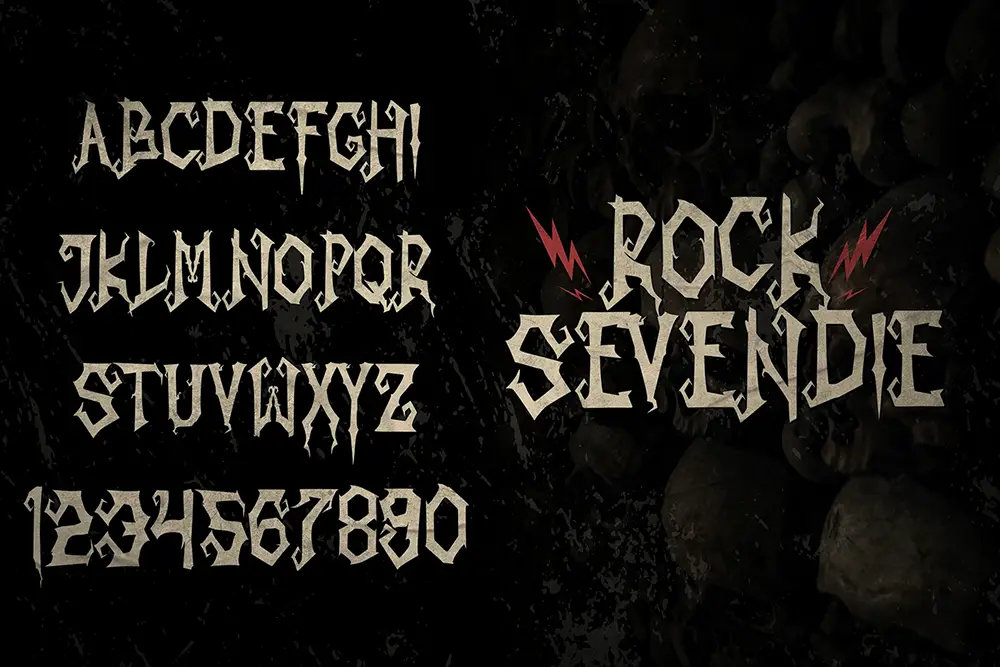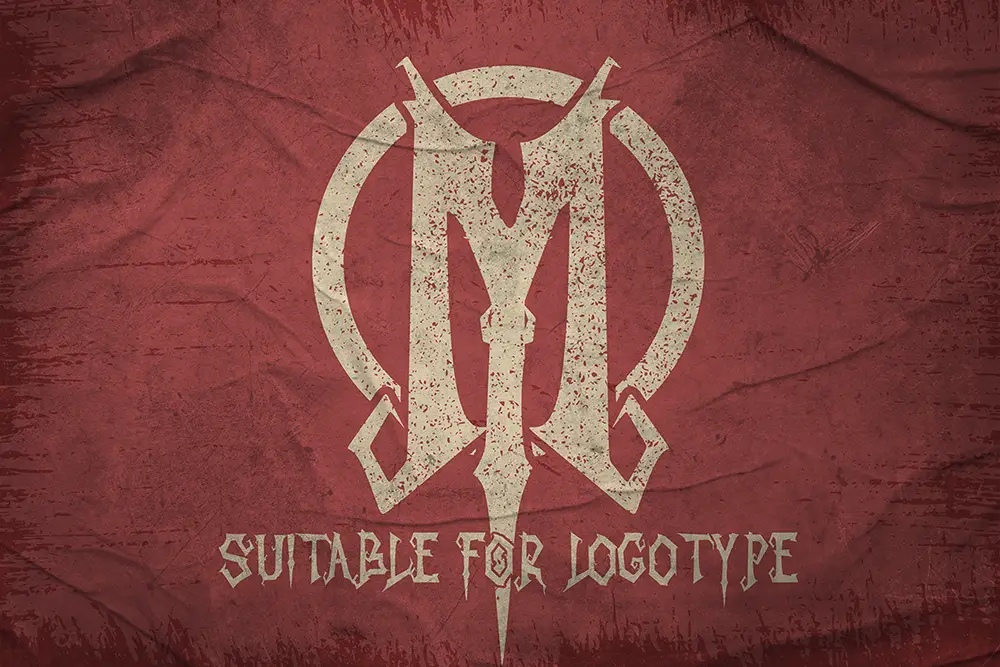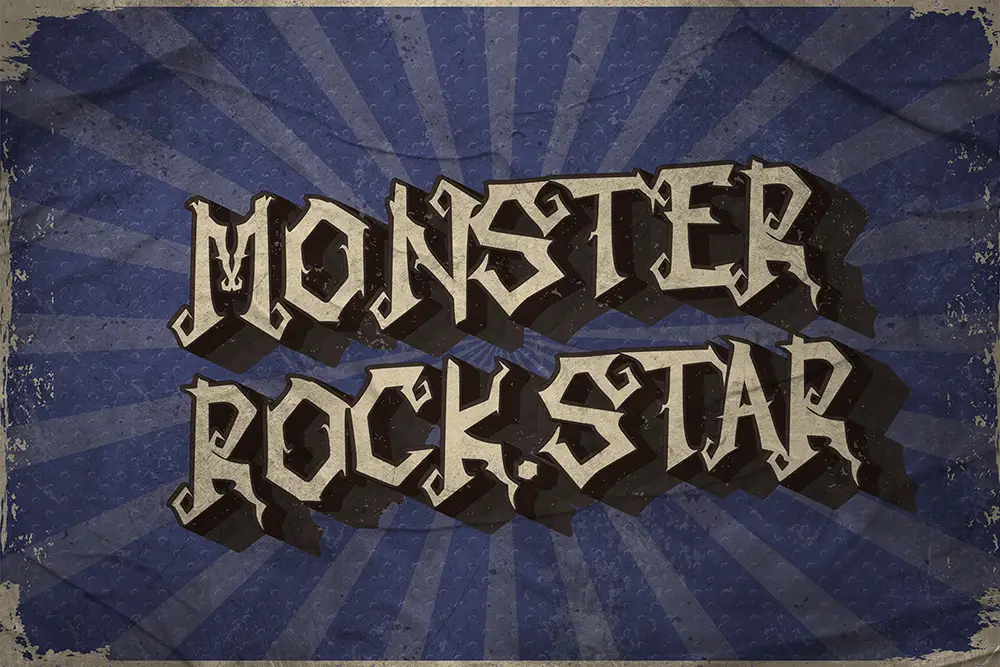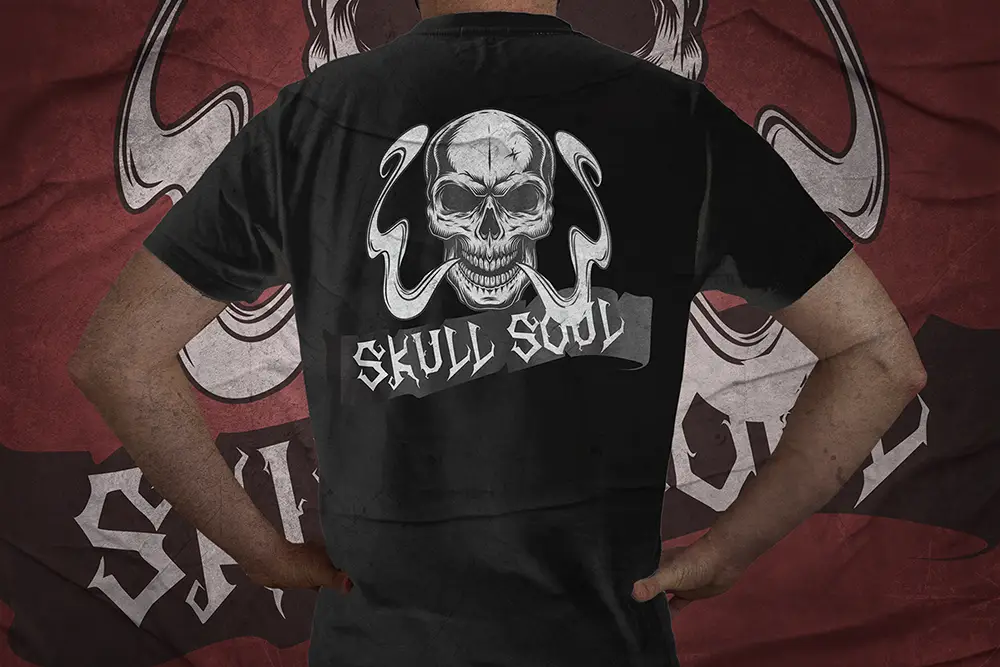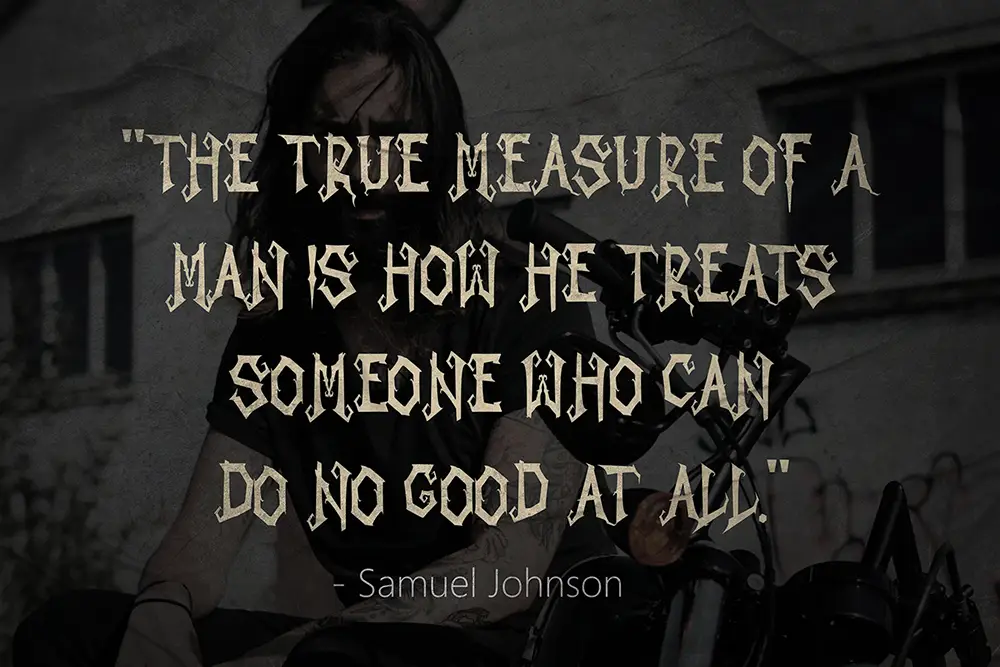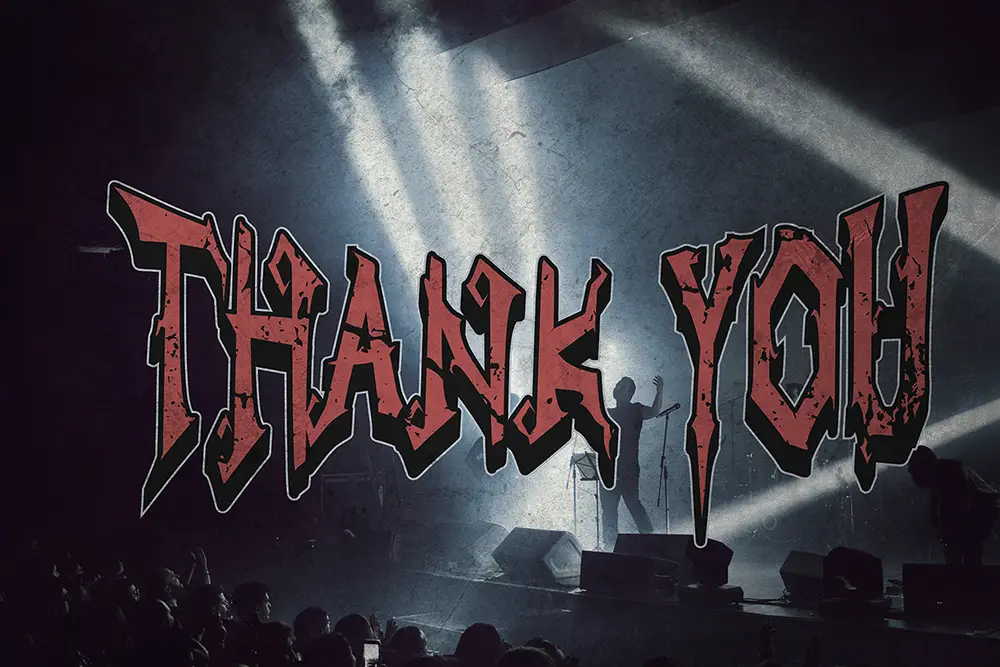
Rock Sevendie – Modern Blackmetal Font for Extreme Design
Typography is not just about letters—it’s about atmosphere, emotion, and impact. That’s why Rock Sevendie – Modern Blackmetal Font was created: to bring raw intensity and sharp aesthetics into your designs. Built with all uppercase characters, this modern blackmetal font is a powerhouse for designers who want to make their work scream with attitude.
From metal band logos to underground event posters, Rock Sevendie is more than a typeface—it’s a statement of rebellion. With OTF, TTF, and WOFF file formats included, plus multilingual support, it’s versatile and ready for global use.
Modern Blackmetal Font with Raw Energy
Rock Sevendie stands tall as a modern blackmetal font that balances tradition and innovation. Inspired by black metal band logotypes, it carries aggressive strokes, jagged edges, and bold forms that command attention. Unlike generic heavy fonts, Rock Sevendie is refined to remain legible while still keeping its extreme edge.
Whether you’re designing an album cover, festival flyer, or digital artwork, this modern blackmetal font injects raw energy and uncompromising style into your work.
Key Features of Rock Sevendie – Modern Blackmetal Font
Professional designers demand more than style—they need reliability. Rock Sevendie comes packed with features that make it easy to integrate into any workflow:
• Uppercase Only (All Caps): Strong capital letter design for maximum impact.
• Multilingual Support: Extended Latin set for global audiences.
• Aggressive Blackmetal Style: Inspired by extreme music culture.
• Sharp and Bold Strokes: Perfect for striking logos and headlines.
• Optimized for Display: Works best in large sizes for posters, covers, and titles.
Why Designers Love Rock Sevendie
Designers across music, entertainment, and underground art love Rock Sevendie because it captures the essence of extreme culture in a professional, usable way. Here’s why this modern blackmetal font is so popular:
• Uncompromising Style: Aggressive and bold, yet clean enough to stay readable.
• Perfect for Niche Markets: Metal bands, gothic projects, and underground brands find it ideal.
• Easy Pairing: Pairs beautifully with elegant serifs like Kastroz Luxury Vintage Serif Font for contrast-driven designs.
Rock Sevendie for Logos and Branding
Logos represent identity, and in the world of metal music and alternative branding, boldness is everything. Rock Sevendie’s modern blackmetal font design is built for unforgettable logos. Its sharp uppercase structure makes it perfect for band names, club branding, extreme sports, and edgy product labels.
Use Rock Sevendie as your logo’s centerpiece, or pair it with a serif like Kastroz to balance chaos with elegance. The result is branding that’s both rebellious and refined.
Rock Sevendie for Posters and Album Covers
No genre uses typography as powerfully as heavy music, and posters are its battlefield. Rock Sevendie thrives here. As a modern blackmetal font, it brings menace, energy, and power to event flyers, album artwork, and merchandise.
When displayed in large format, its jagged strokes amplify the mood of intensity. Whether you’re promoting a metal festival or designing a horror-themed poster, Rock Sevendie ensures your design screams louder than the rest.
Rock Sevendie in Digital Media
In today’s world, underground culture thrives online. Rock Sevendie’s modern blackmetal font style is ideal for digital branding, social media headers, and streaming platform graphics.
Its uppercase power ensures maximum visibility even on small screens. Designers who work on YouTube thumbnails, Twitch branding, or alternative lifestyle blogs love Rock Sevendie for its bold impact.
• Character Set: Uppercase (All Caps), Numbers, Punctuation
• Category: Modern Blackmetal Font / Display
• Best Uses: Logos, Posters, Album Covers, Branding, Digital Media, Merchandise
Font Pairing Suggestions
Rock Sevendie becomes even more dynamic when paired with other fonts. Here’s a winning combination:
This pairing works perfectly for projects that need extreme impact without losing readability.
Why Rock Sevendie is a Must-Have Modern Blackmetal Font
Trends in niche design demand authenticity and boldness. Rock Sevendie delivers both. It’s not just another display typeface—it’s a modern blackmetal font crafted for designers who want attitude in every letter.
Rock Sevendie – Modern Blackmetal Font is the typeface that screams attitude, rebellion, and energy. Built for extreme logos, striking posters, and unforgettable album covers, this modern blackmetal font is a design weapon for creatives who dare to be bold.
If your designs need power, intensity, and a raw edge, Rock Sevendie is the font that delivers.